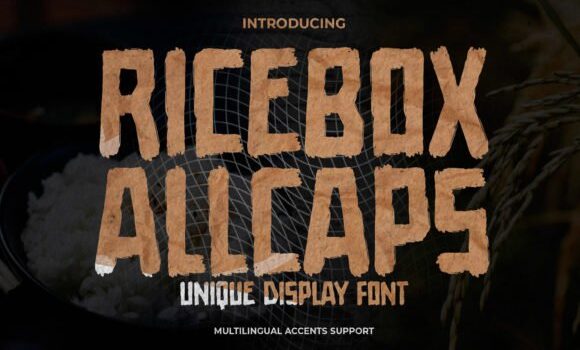
Ricebox Allcaps Font – Free Download Introduction to Ricebox Allcaps Font Ricebox Allcaps is a robotic styled and squared lettered display font. 📸 Preview Gallery 6 images 📌 Product Name Ricebox Allcaps Font 👤 Author Gassstype Studio 📂 Category Explore